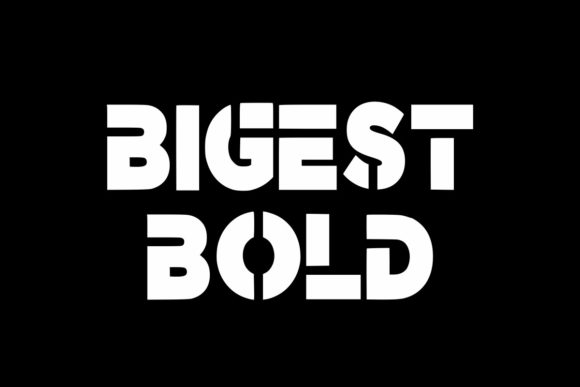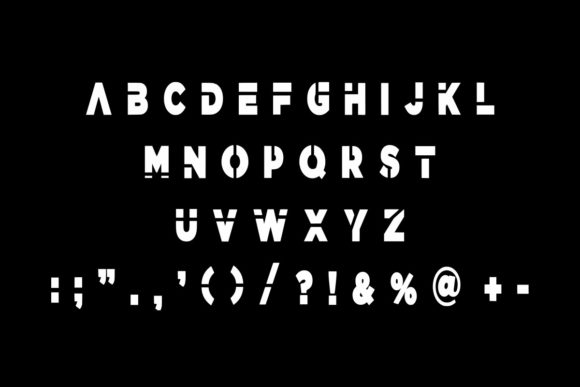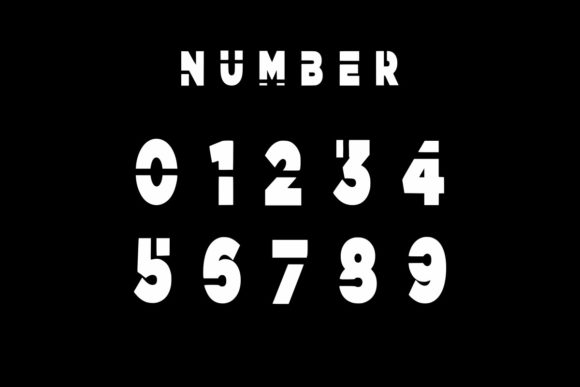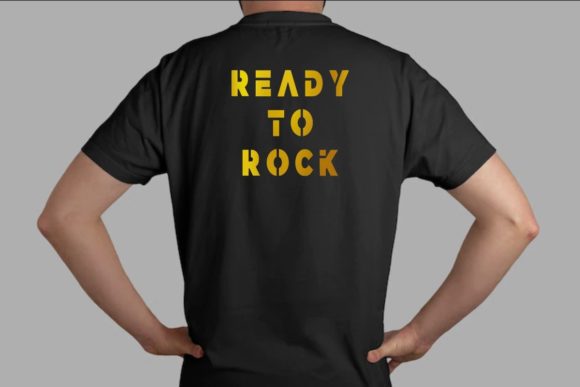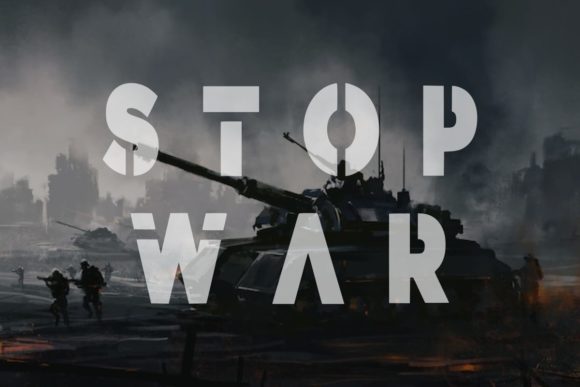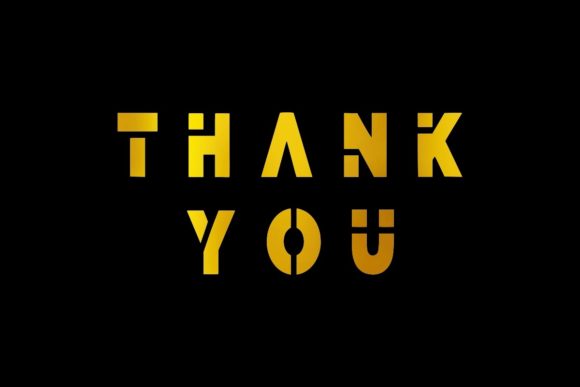
Introducing Force Army Font: The Ultimate Display Font for Bold Designs
Are you looking for a font that exudes strength, courage, and a unique charm? Look no further than Force Army Font, a bold and dynamic display font that’s perfect for making a statement. In this article, we’ll dive into the features and benefits of Force Army Font, and explore how it can elevate your designs to the next level.
A Font that Packs a Punch
Force Army Font is a strong and bold-looking display font that’s designed to grab attention. Its dynamic effect and unique charm make it perfect for headlines, sporting events, text effects, Army posters, logos, or monogrammed designs. Whether you’re a designer, crafty DIY enthusiast, or a business owner looking to create a bold brand identity, Force Army Font is the perfect choice.
Key Features of Force Army Font
- Bold and Dynamic Design: Force Army Font features a bold and dynamic design that’s sure to make a statement. Its strong lines and unique charm make it perfect for creating eye-catching headlines and titles.
- Versatile Uses: This font is perfect for a wide range of design projects, including sporting events, Army posters, logos, monogrammed designs, and more.
- Easily Customizable: Force Army Font is easily customizable, allowing you to adjust the font to fit your design needs.
- High-Quality Design: This font is designed with high-quality graphics, ensuring that it looks great in any design project.
Force Army Font is perfect for designers and crafters who want to add a bold and dynamic touch to their designs. Whether you’re creating a logo, brochure, or social media graphic, this font is sure to make your design stand out. Its unique charm and dynamic effect make it perfect for a wide range of design projects, from sporting events to Army posters and more.
How to Use Force Army Font in Your Designs
- Use it for Headlines: Force Army Font is perfect for creating bold and eye-catching headlines. Use it to grab attention and draw the reader in.
- Pair it with Other Fonts: Force Army Font pairs well with other fonts, such as sans-serif fonts or script fonts. Experiment with different font combinations to find the perfect look for your design.
- Adjust the Size and Color: Adjust the size and color of Force Army Font to fit your design needs. You can use it in a variety of colors, from bold and bright to subtle and muted.
Benefits of Using Force Army Font
There are many benefits to using Force Army Font in your designs. Here are a few:
- Grabs Attention: Force Army Font is designed to grab attention. Its bold and dynamic design makes it perfect for creating eye-catching headlines and titles.
- Unique Charm: This font has a unique charm that sets it apart from other fonts. Its dynamic effect and bold lines make it perfect for creating memorable designs.
- Versatile: Force Army Font is versatile and can be used in a wide range of design projects, from sporting events to Army posters and more.
Force Army Font is a bold and dynamic display font that’s perfect for making a statement. Its unique charm and dynamic effect make it perfect for headlines, sporting events, text effects, Army posters, logos, or monogrammed designs. Whether you’re a designer, crafty DIY enthusiast, or a business owner looking to create a bold brand identity, Force Army Font is the perfect choice. With its bold and dynamic design, versatility, and high-quality graphics, this font is sure to elevate your designs to the next level.